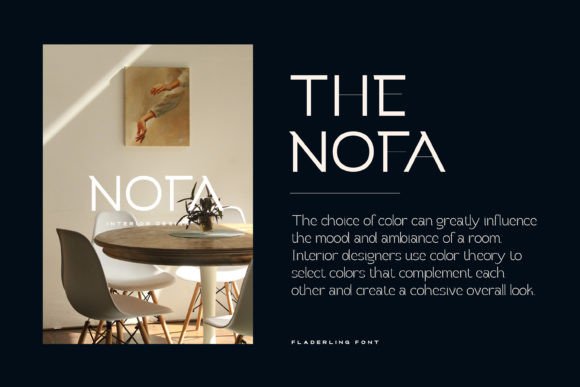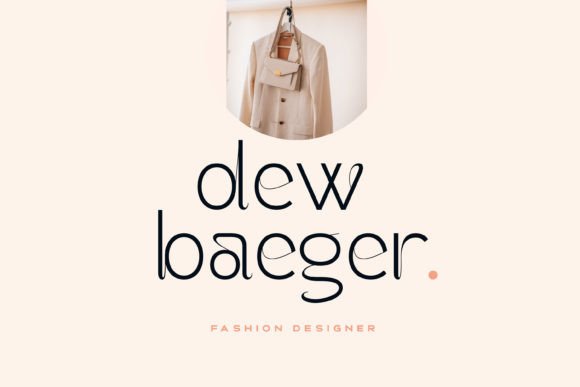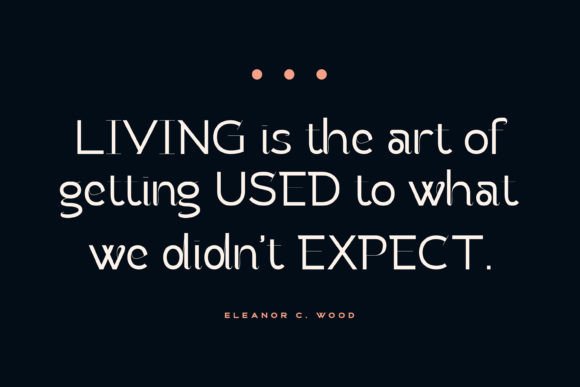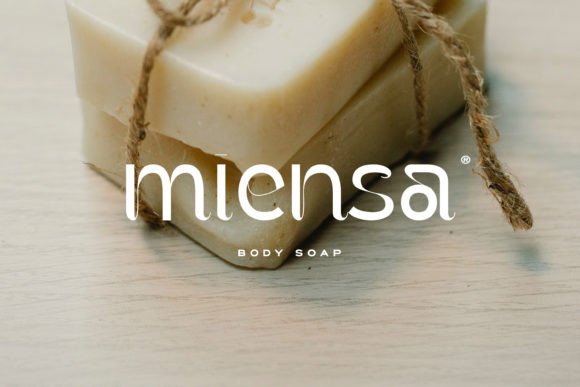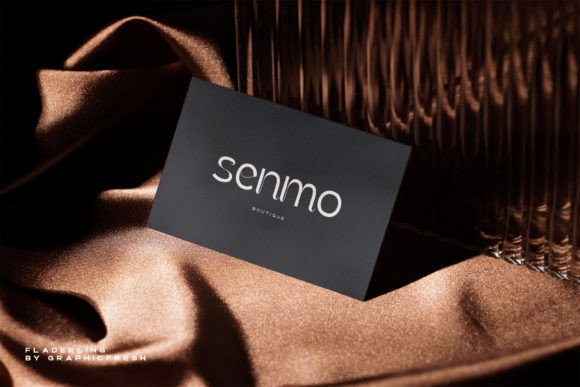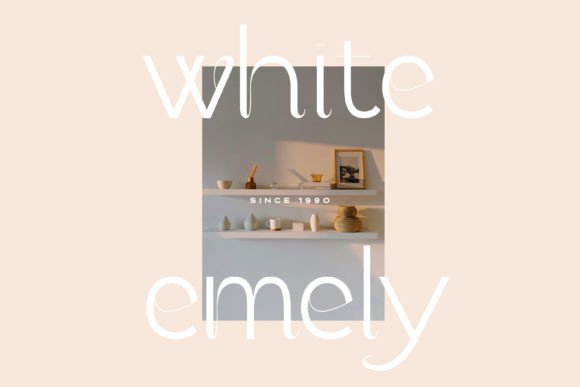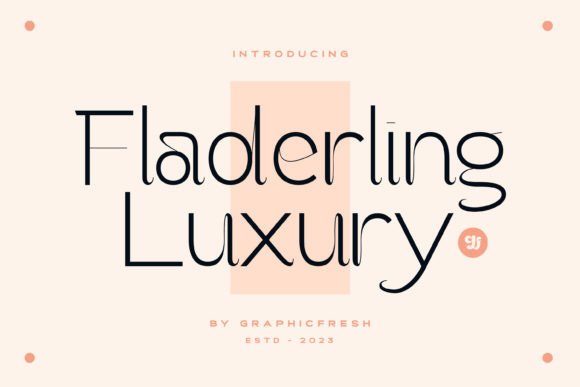
Introducing Fladerling Font: The Minimalist Cherry Stem Inspiration for Impactful Logo Design and Branding
In the world of typography, fonts play a crucial role in shaping the identity of a brand or project. A well-designed font can elevate a brand’s visual appeal, convey its message, and leave a lasting impression on its audience. Among the numerous fonts available, Fladerling Font stands out as a unique and elegant choice, inspired by the slender stems of cherries. This minimalist font is perfect for creating impactful logo designs and branding that exudes simplicity, sophistication, and a touch of whimsy.
The Inspiration Behind Fladerling Font
Fladerling Font draws its inspiration from the delicate stems of cherry blossoms, which are renowned for their beauty and fragility. The font’s creator aimed to capture the essence of these stems, translating their elegance and simplicity into a typographic masterpiece. The result is a font that boasts clean lines, minimalist shapes, and a distinctive character that sets it apart from other fonts.
Key Features of Fladerling Font
- Elegant and Simple Shapes: Each character in Fladerling Font features elegant and simple shapes, making it versatile and suitable for various logo designs and branding applications.
- Minimalist Design: The font’s minimalist design ensures that it remains uncluttered and easy to read, even at smaller font sizes.
- Unique Cherry Stem Inspiration: The inspiration from cherry stems adds a unique touch to the font, making it stand out from other fonts and giving it a distinctive character.
- Versatile: Fladerling Font is suitable for a wide range of logo designs, from wordmarks to symbols, and can be used for various branding applications.
Why Choose Fladerling Font for Your Logo Design and Branding?
Fladerling Font is an excellent choice for designers and crafters looking to create a lasting impression and memorable branding for their business or project. Here are some compelling reasons to choose Fladerling Font:
- Creates a Lasting Impression: The unique and elegant design of Fladerling Font ensures that your logo design and branding leave a lasting impression on your audience.
- Enhances Brand Identity: The font’s simplicity and sophistication help to enhance your brand’s identity and convey its message effectively.
- Versatile and Adaptable: Fladerling Font can be used across various platforms, from digital media to print materials, making it an excellent choice for businesses and projects with diverse branding needs.
- Easy to Read: The font’s clean lines and minimalist design ensure that it remains easy to read, even at smaller font sizes.
Tips for Using Fladerling Font Effectively
To get the most out of Fladerling Font, consider the following tips:
- Pair it with Other Fonts: Experiment with pairing Fladerling Font with other fonts to create a unique and visually appealing typography.
- Use it Consistently: Use Fladerling Font consistently across all your branding materials to create a cohesive and recognizable brand identity.
- Experiment with Colors: Try out different colors and color combinations to find the perfect match for your brand and Fladerling Font.
Fladerling Font is a unique and elegant minimalist font inspired by the slender stems of cherries. Its simple and sophisticated design makes it an excellent choice for impactful logo design and branding. With its versatility, adaptability, and distinctive character, Fladerling Font is perfect for designers and crafters looking to create a lasting impression and memorable branding for their business or project. Whether you’re creating a wordmark or a symbol, Fladerling Font is sure to elevate your brand’s visual appeal and convey its message effectively.